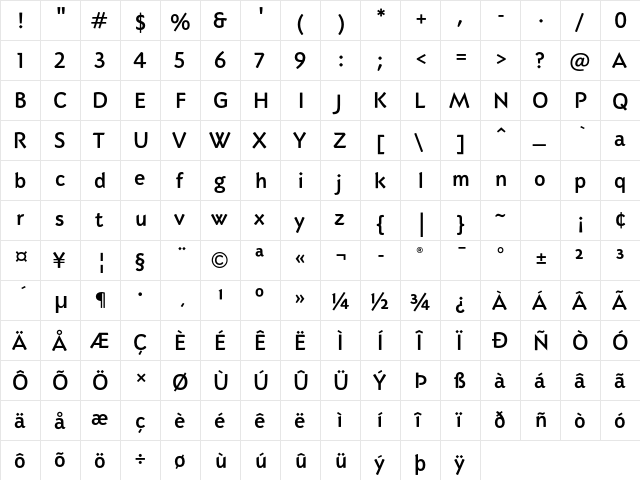
Adderville ITC Std Medium
| Designer | George Ryan |
Design Context for Adderville ITC Std Typeface
Adderville ITC Std takes a measured approach to typography — its balanced proportions and neutral character make it a reliable workhorse for both digital and print work.